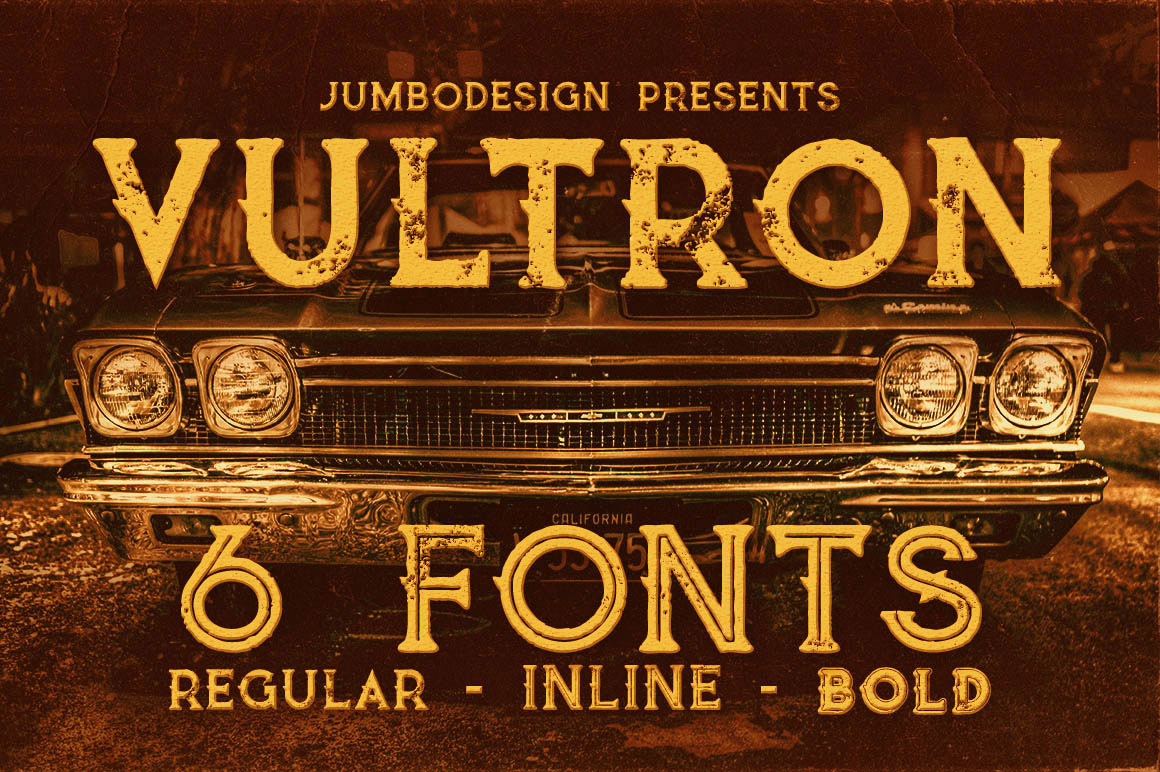
Vultron - Vintage Style Font
Unique retro or vintage style custom font with 6 styles: regular and grunge, inline and inline grunge, bold and bold grunge.